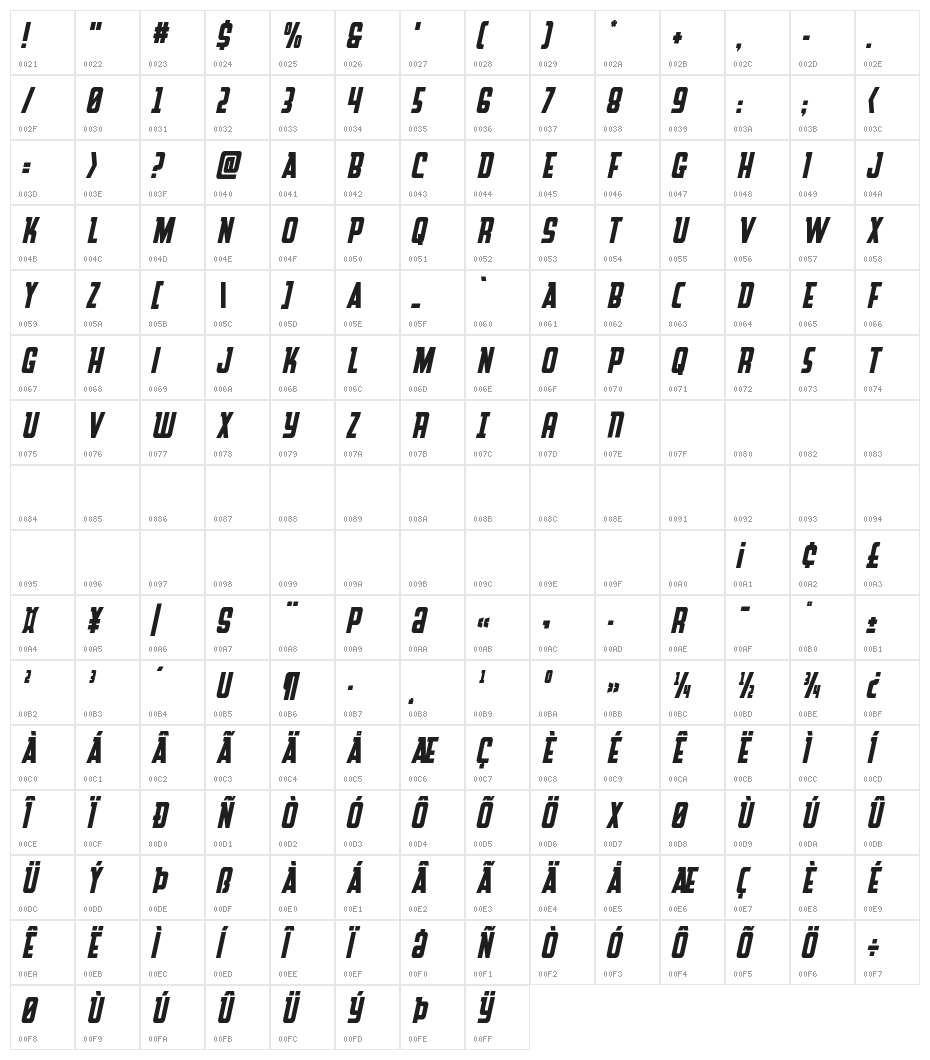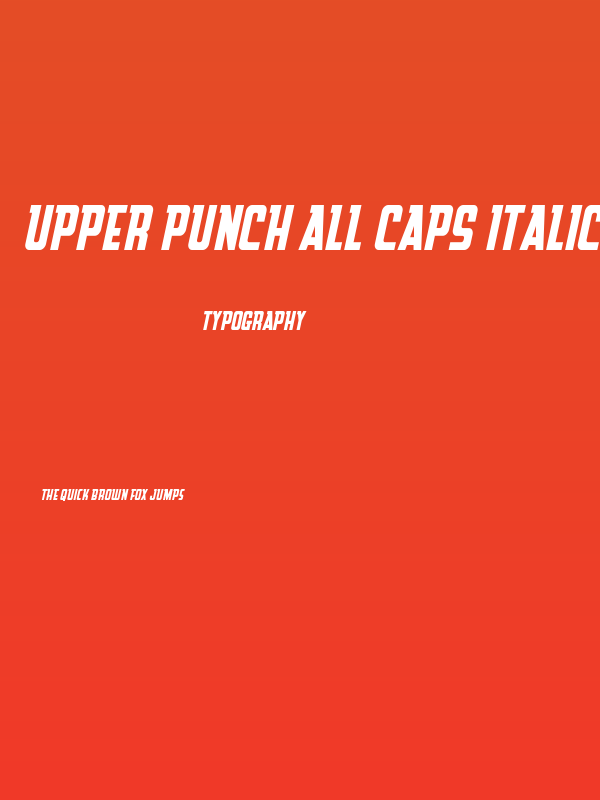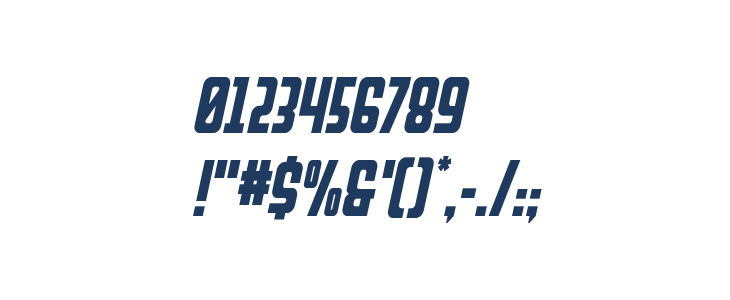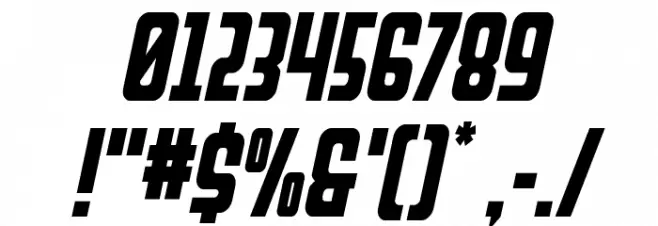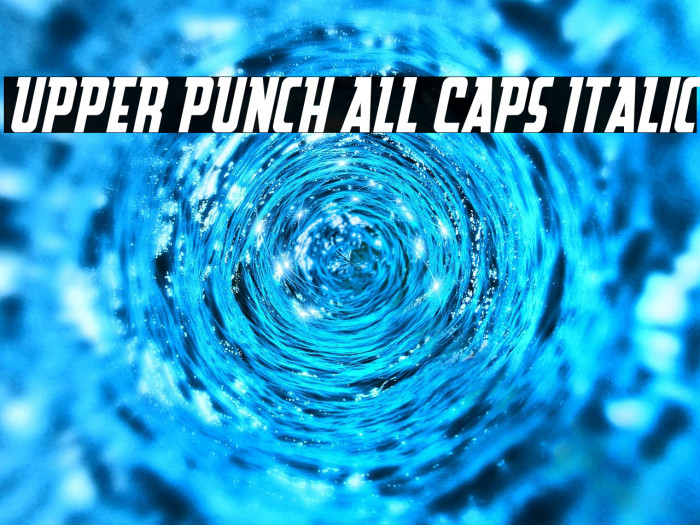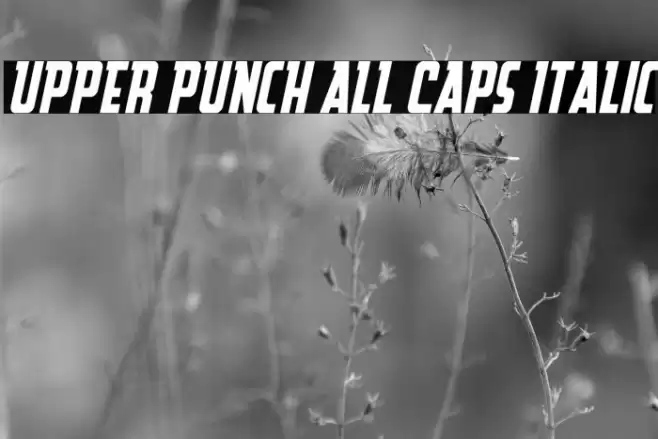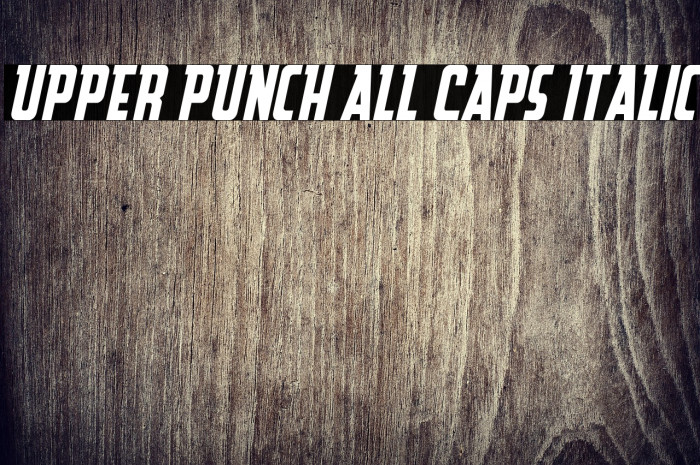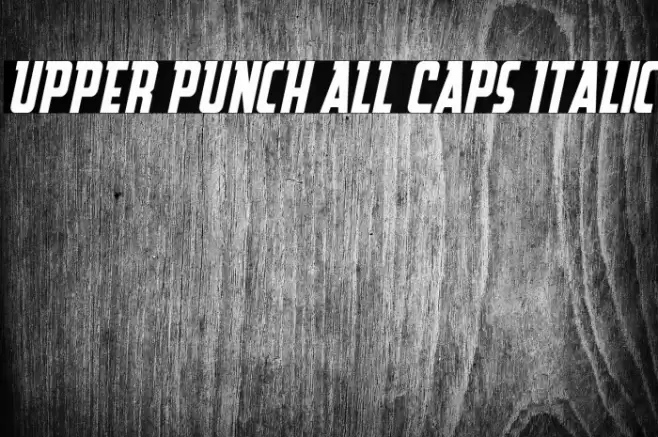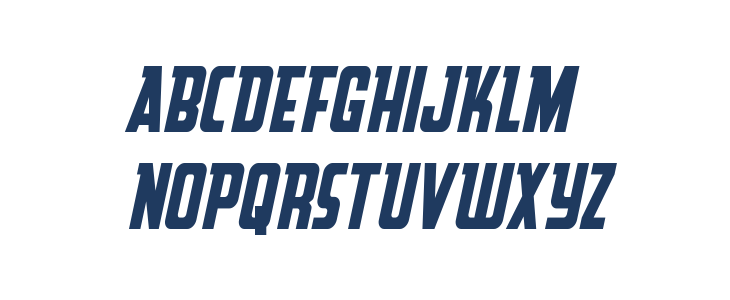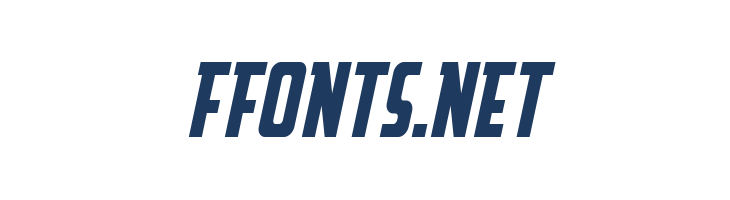
Upper Punch All Caps Italic Font
Upper Punch All Caps Italic Description
This font exhibits a bold and dynamic style with a strong italic slant, giving it a sense of motion and energy. The characters are all uppercase, featuring sharp angles and a condensed form that enhances its impactful appearance. The numbers and special characters maintain the same bold and italicized characteristics, ensuring consistency across all elements. The font's design is modern and assertive, making it ideal for projects that require a strong visual presence.
| Proposed Projects | Ideal for sports branding, action movie posters, dynamic advertisements, and any project needing a bold statement. |